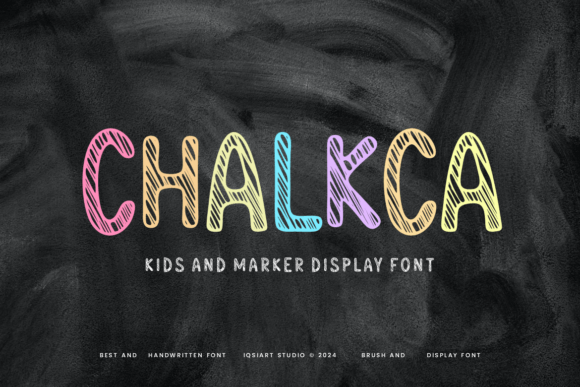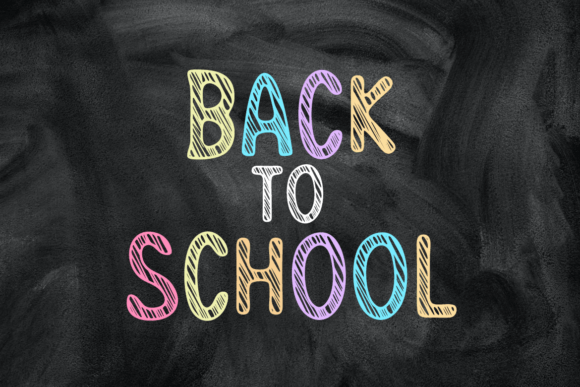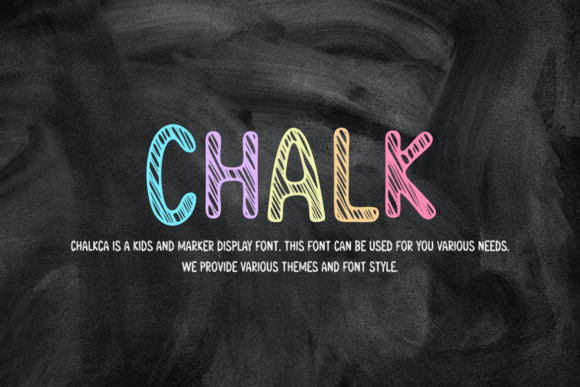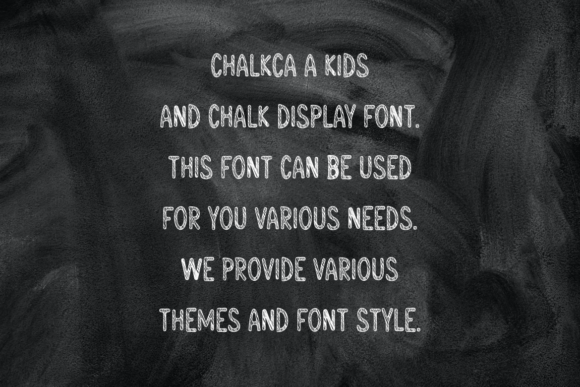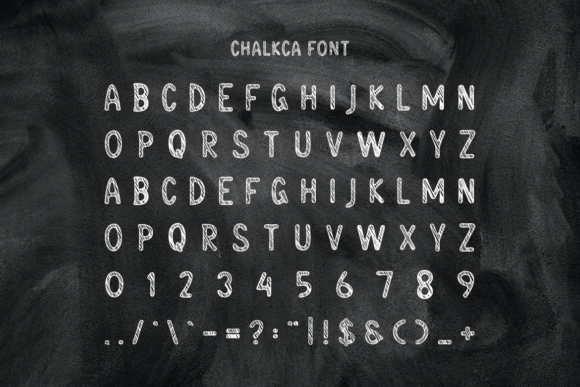
Chalkca Font
Chalkca is a fun and playful font that looks like it was written with markers or chalk. It’s great for kids’ projects, school activities, and colorful designs. The letters are bold, rounded, and easy to read, making it perfect for creating bright, happy, and creative text.